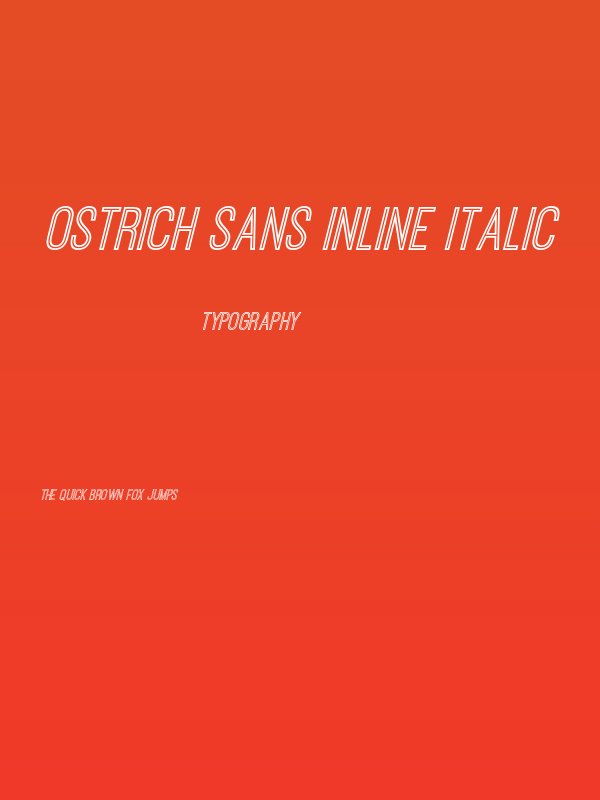
Ostrich Sans Inline Italic Font
Ostrich Sans Inline Italic Description
This font features a modern and sleek design with an inline style that adds a unique dimension to each character. The letters are italicized, giving a sense of motion and elegance. The uppercase and lowercase alphabets are consistent in style, with clean lines and a geometric structure. The numerals and special characters maintain the same aesthetic, ensuring uniformity across all text elements. The inline detail provides a distinctive look, making it suitable for creative and contemporary projects.
| Proposed Projects | Ideal for branding, advertising, posters, and any project that requires a modern and stylish touch. |